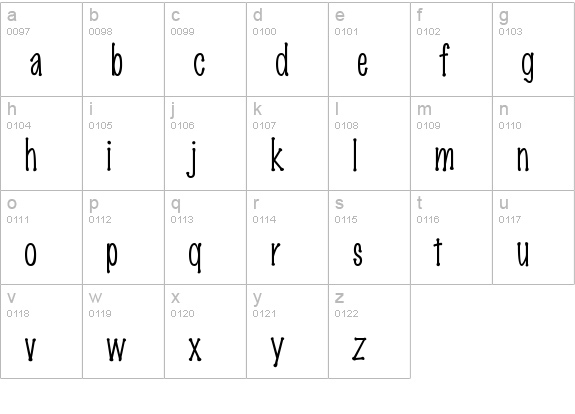
MarkerFinePoint Font Details
Introducing MarkerFinePoint, a font that is as bold and expressive as your imagination. This font effortlessly captures the essence of handwritten precision, bringing a touch of artistry to your designs. With its fine point, this font creates clean and crisp lines, adding a professional touch to any project. MarkerFinePoint is a versatile and dynamic font that can be used for a variety of purposes. Whether you're designing a logo, creating eye-catching posters, or even crafting personalized invitations, this font will undoubtedly make a lasting impression. One of the best things about MarkerFinePoint is that it's free! Yes, you heard that right. This incredible font is freely available to download at FontsMarket.com. Now, you can enhance your designs without breaking the bank. This font is perfect for both personal and commercial use, making it a valuable addition to any designer's toolkit. The beauty of MarkerFinePoint lies in its ability to effortlessly blend elegance and playfulness. Its fluid strokes and distinctive style lend a unique charm to any project, ensuring that your designs stand out from the crowd. Whether you're going for a modern, edgy look or a more traditional and timeless aesthetic, this font has got you covered. With MarkerFinePoint, you have the freedom to explore your creativity and push boundaries. Its versatility allows for endless possibilities, making it suitable for a wide range of design projects. From typography enthusiasts to professional designers, this font offers a seamless and enjoyable experience. So why wait? Download MarkerFinePoint for free at FontsMarket.com and let your creativity soar. Join the countless designers who have already fallen in love with this font and unlock a world of possibilities. Elevate your designs to new heights with MarkerFinePoint, the font that combines precision, elegance, and the freedom to create.